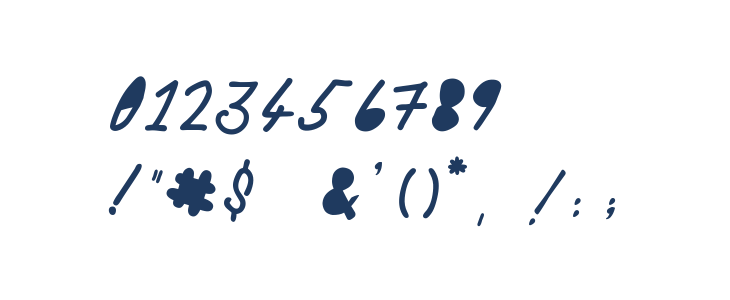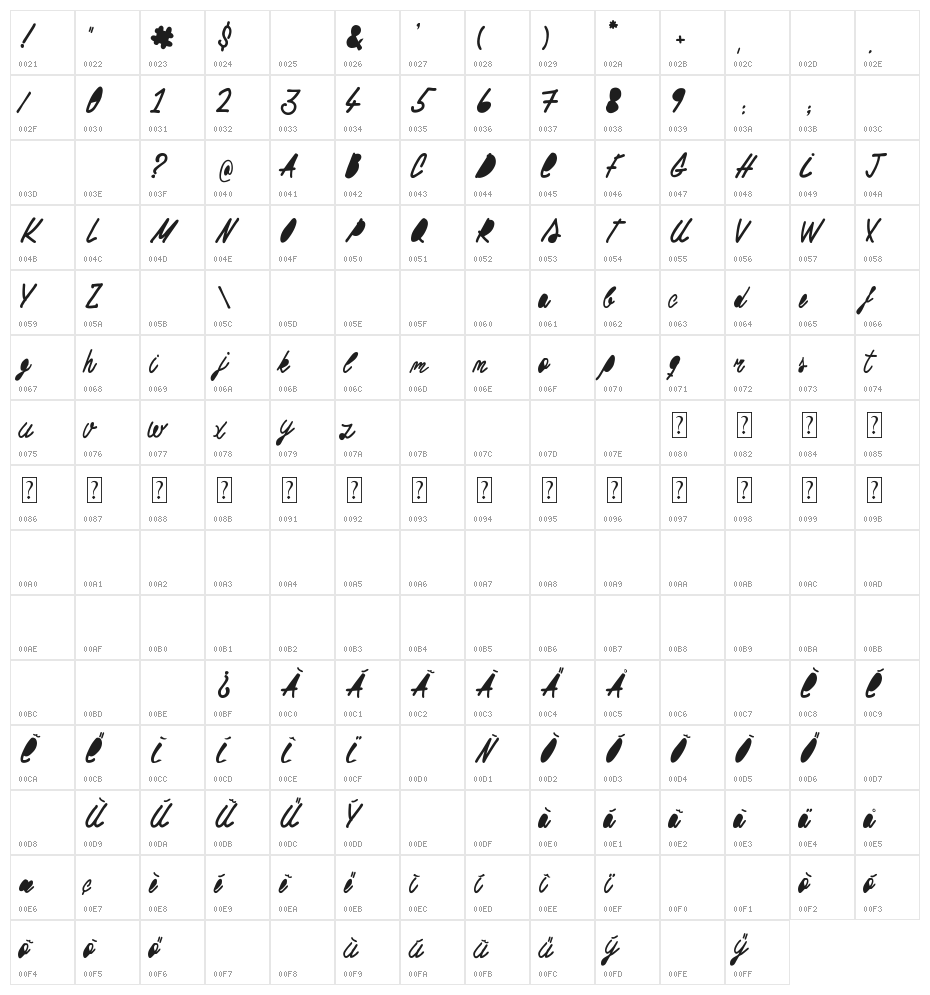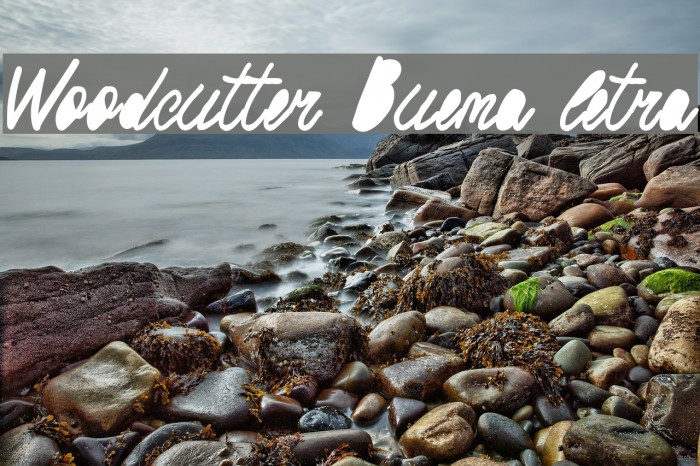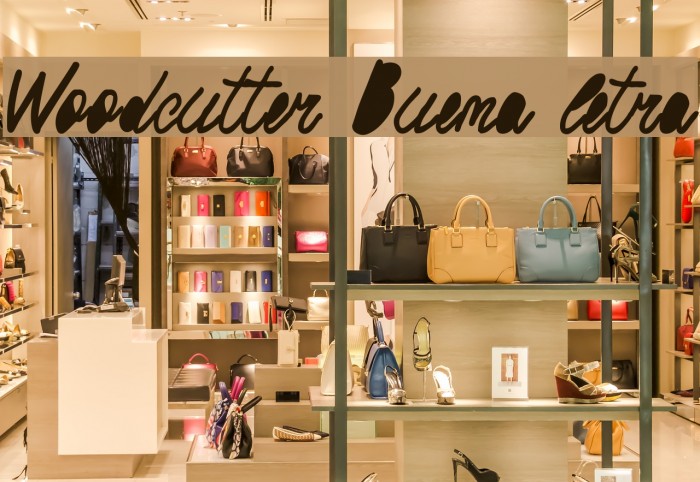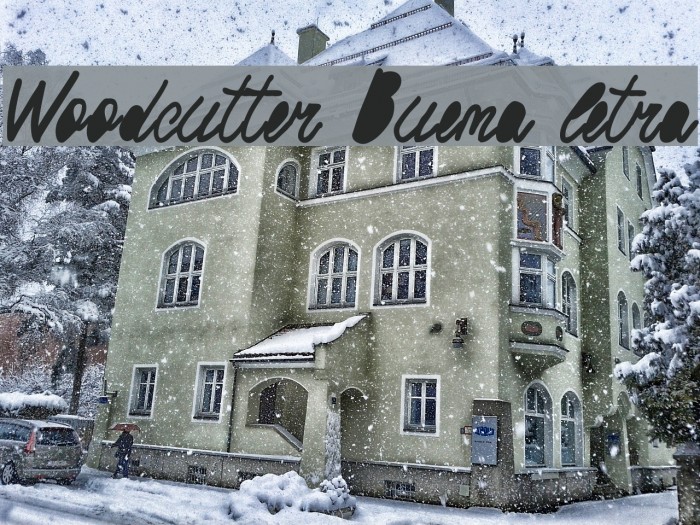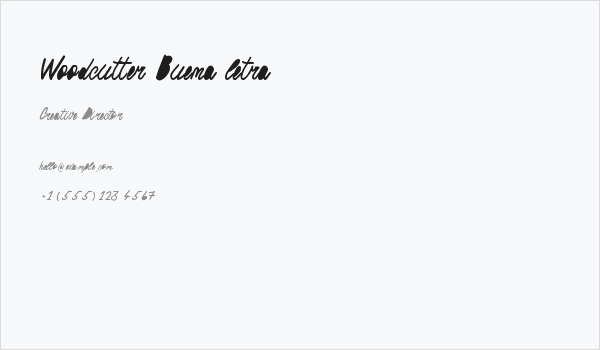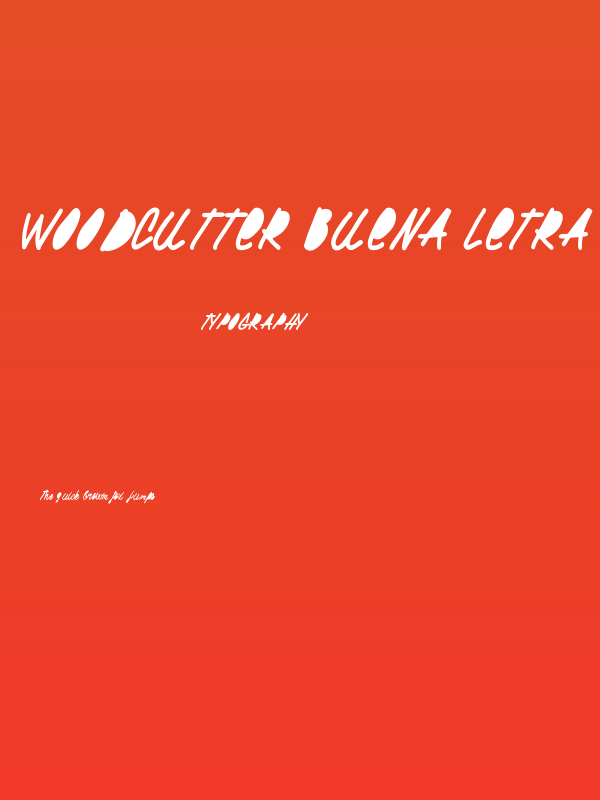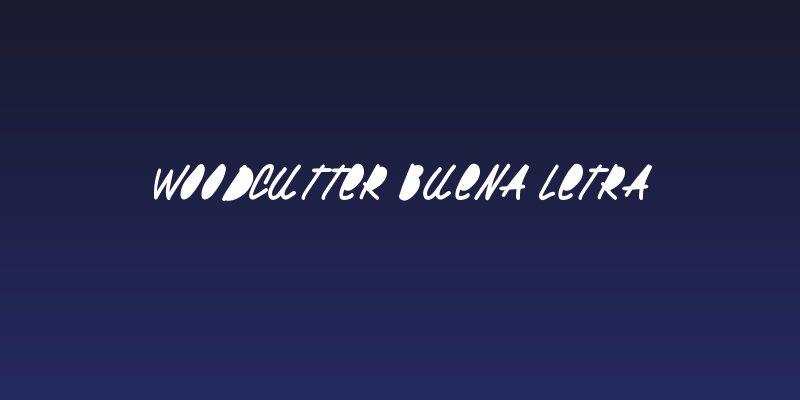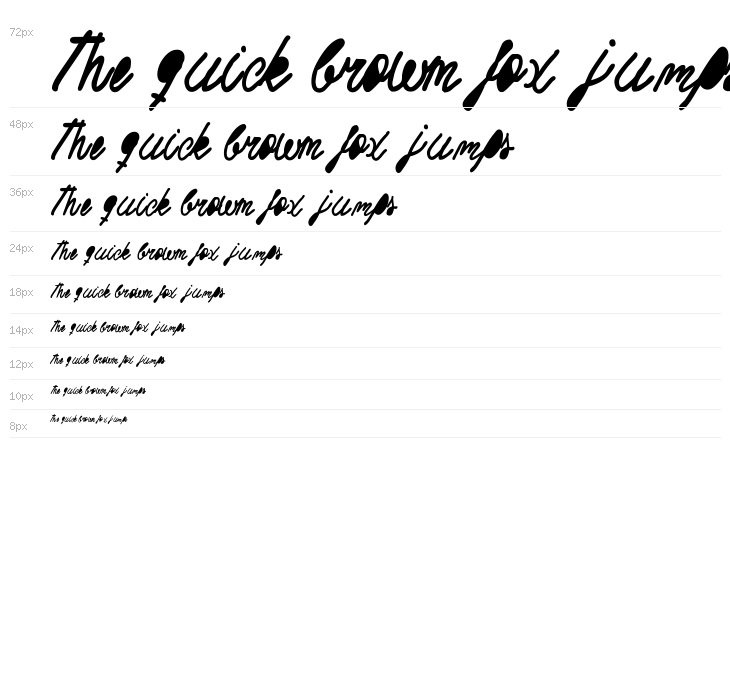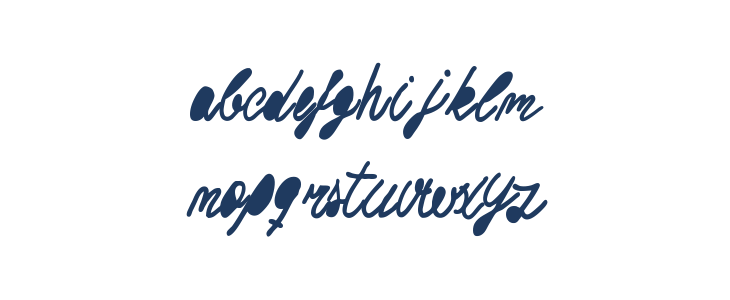
Woodcutter Buena letra Font
Woodcutter Buena letra Description
This font features a bold, cursive style with a playful and energetic feel. The letters are connected, giving it a fluid and continuous appearance, reminiscent of handwriting. The uppercase characters are slightly more angular, while the lowercase letters maintain a smooth, flowing form. The numbers and special characters are consistent with the overall style, maintaining the same bold and dynamic quality. The font's strokes vary in thickness, providing a medium contrast that enhances its legibility and aesthetic appeal.